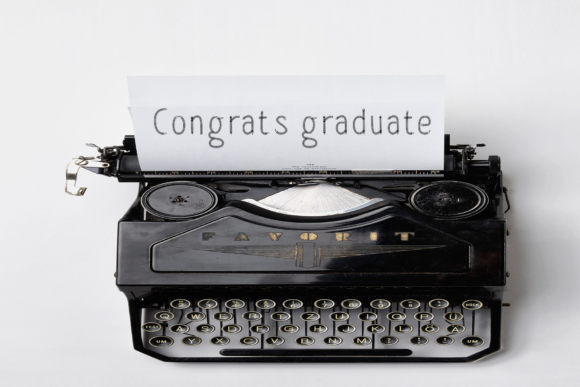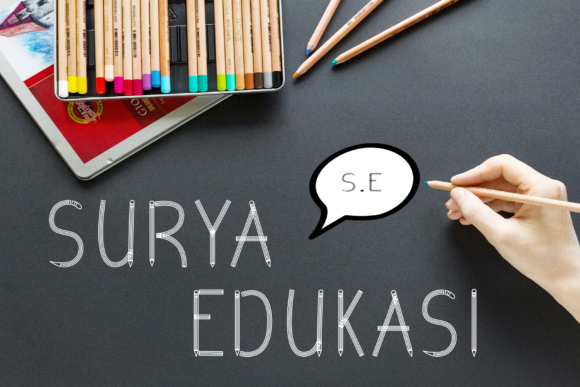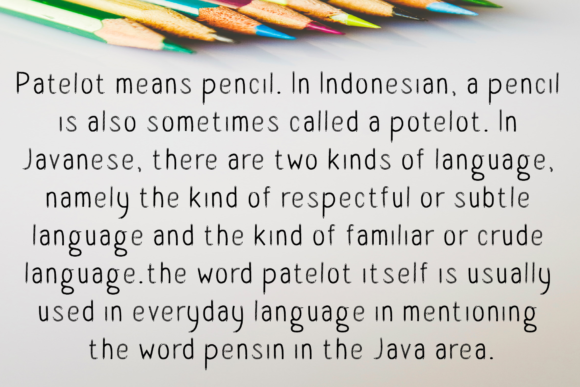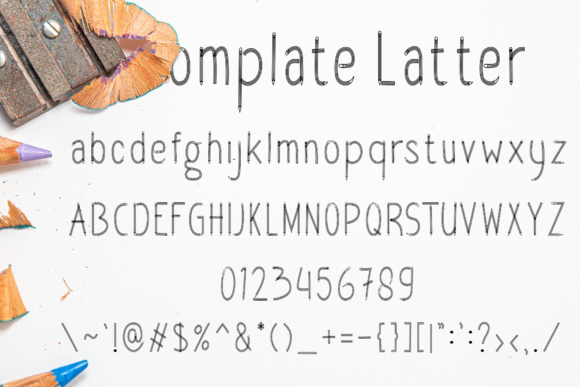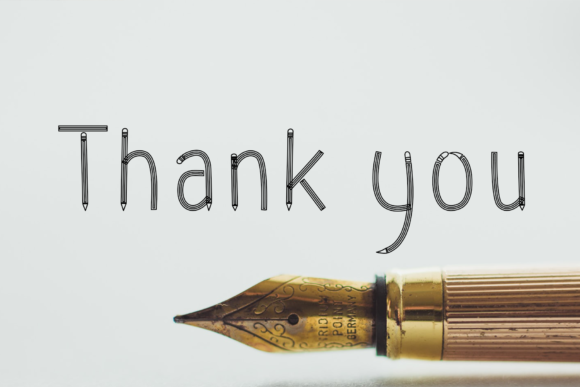
Introduction to Patelot Font
Patelot is a unique and attractive decorative font.
Mix it with your creative ideas and watch how it makes them stand out .
Key Features of Patelot Font
Why Choose Patelot Font?
Patelot Font offers exceptional quality and versatility, making it a valuable addition to your design toolkit. Whether you’re creating for personal projects or commercial use, Patelot Font delivers professional results.